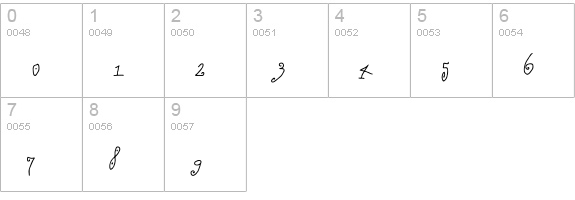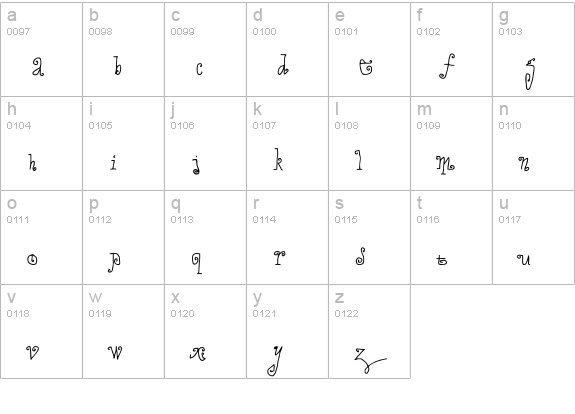
AlfAlfabetje Font Details
AlfAlfabetje font is a whimsical and charming typeface that brings a playful and fun touch to any design project. With its unique hand-drawn style and quirky letterforms, this font is perfect for adding a touch of personality to invitations, greeting cards, posters, and more. The AlfAlfabetje font is freely available to download at FontsMarket.com, making it easy to add a touch of creativity to your next project without breaking the bank. Whether you're looking to add a fun twist to your designs or simply want to experiment with a new typeface, AlfAlfabetje is sure to delight and inspire.